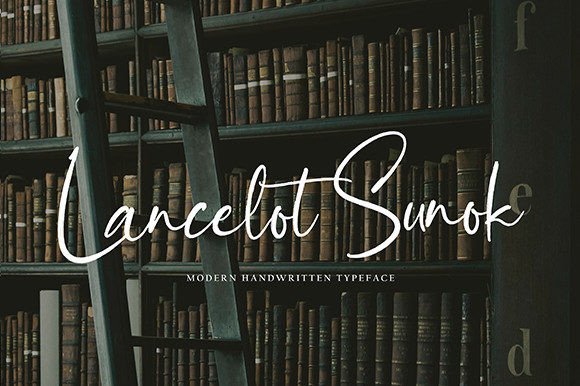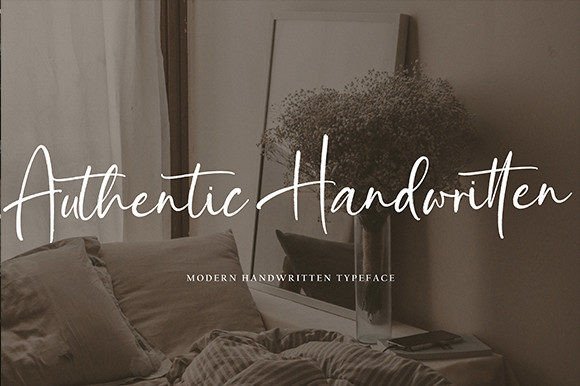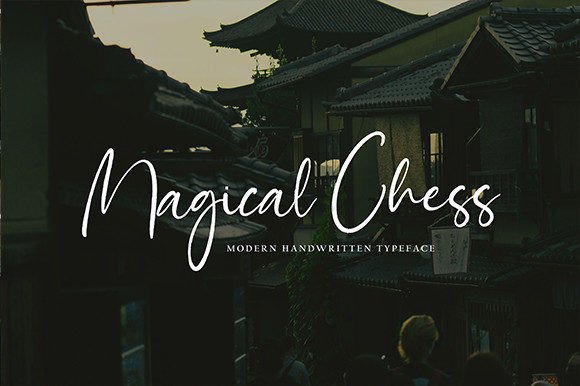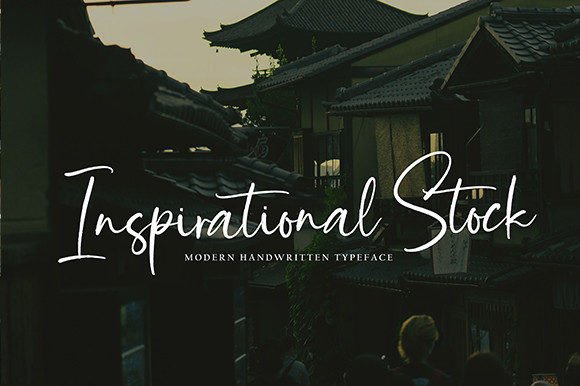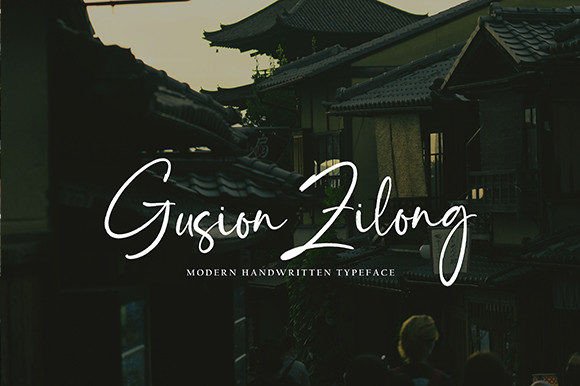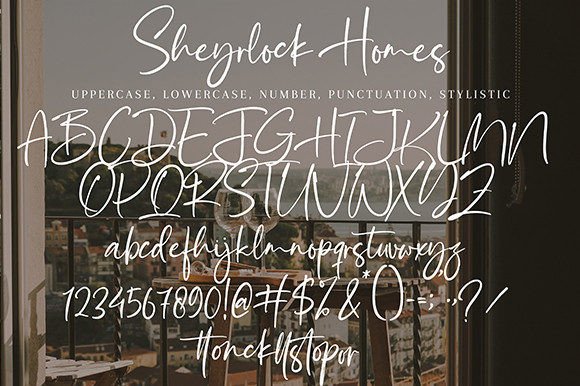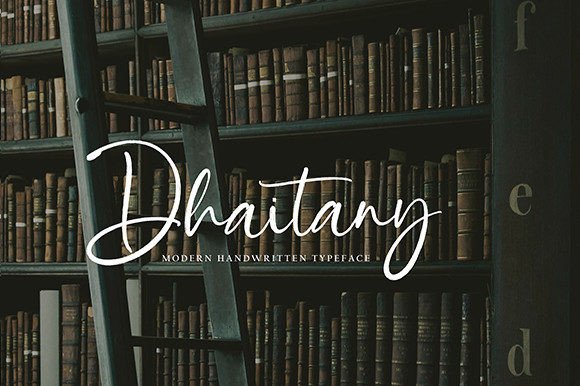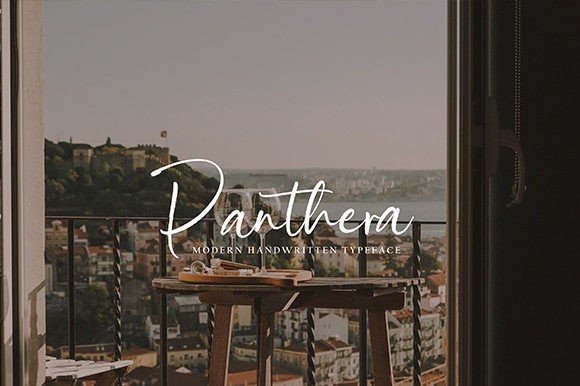
Sheyrlock Homes Font
About Sheyrlock Homes Font
“Sheyrlock Homes” is a modern and stylish script font that offers versatility and elegance to your design projects. With its well-crafted and fashionable appearance, this font is suitable for a wide range of design ideas, making it a valuable addition to your font collection. Whether you’re working on branding, invitations, posters, or any other creative endeavor, “Sheyrlock Homes” has the potential to add sophistication and flair to your designs.
The appeal of “Sheyrlock Homes” lies in its ability to convey a sense of modernity and style. Its script style features sleek and beautifully designed letterforms that create a visually captivating and fashionable aesthetic. This font seamlessly integrates into various design projects, adding a touch of contemporary elegance and creativity.
One of the standout features of “Sheyrlock Homes” is its adaptability. It can enhance a wide range of design contexts, making it a versatile asset for creative work. The font’s modern and stylish appearance adds a sense of sophistication to your text.
When you incorporate “Sheyrlock Homes” into your designs, you can expect your creations to exude a sense of refinement and contemporary style. This font has the power to make your designs stand out and leave a lasting impression on your audience.
In summary, “Sheyrlock Homes” is more than just a font; it’s a design asset that can elevate your creative projects with its modern and stylish script style. Its versatility and fashionable appeal make it a valuable addition to your design toolkit. You can confidently use “Sheyrlock Homes” to add sophistication and flair to a wide range of design ideas, as it has the potential to make your designs truly remarkable!